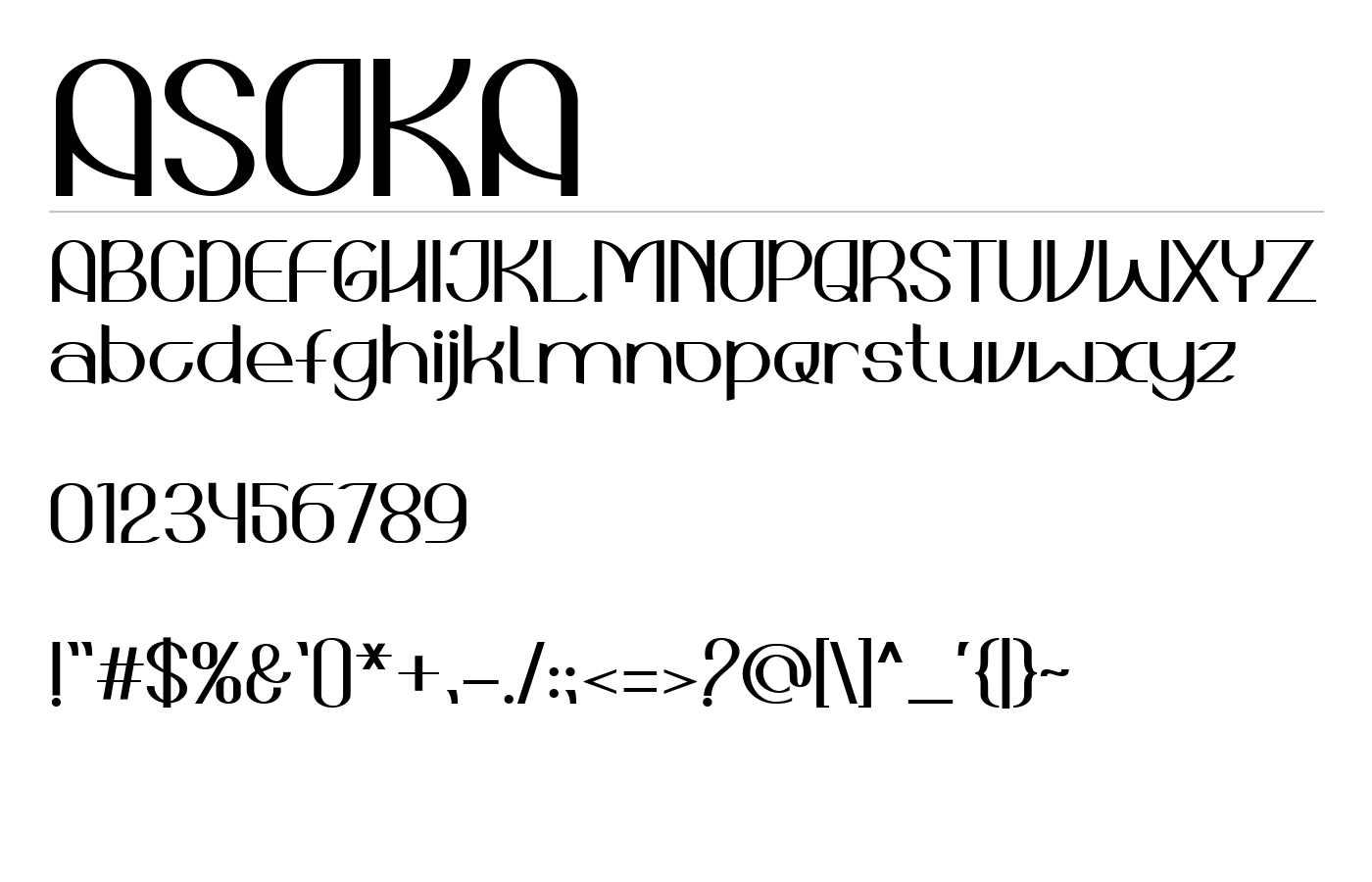
ASOKA is a distinctive sans serif font with a modern, art-deco-inspired style. It features elongated, narrow letterforms with sharp, clean edges and a high contrast between thick and thin strokes, giving it a sleek and elegant appearance. This font works beautifully for upscale branding, headlines, and editorial designs where a sophisticated, stylish vibe is desired.
ASOKA Font
About ASOKA Font
| Font family | ASOKA Font |
| Designer | RAHMATILLAH |